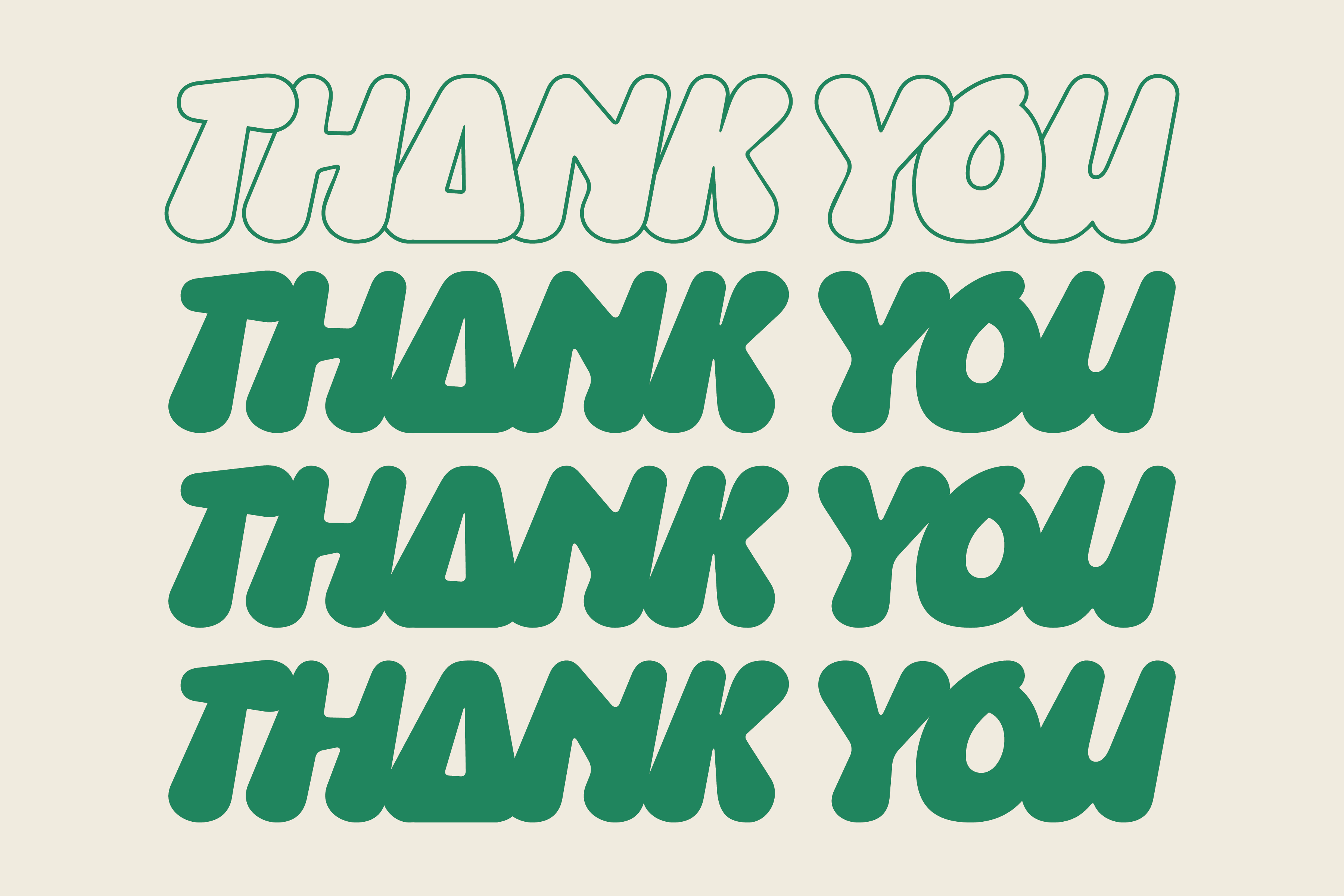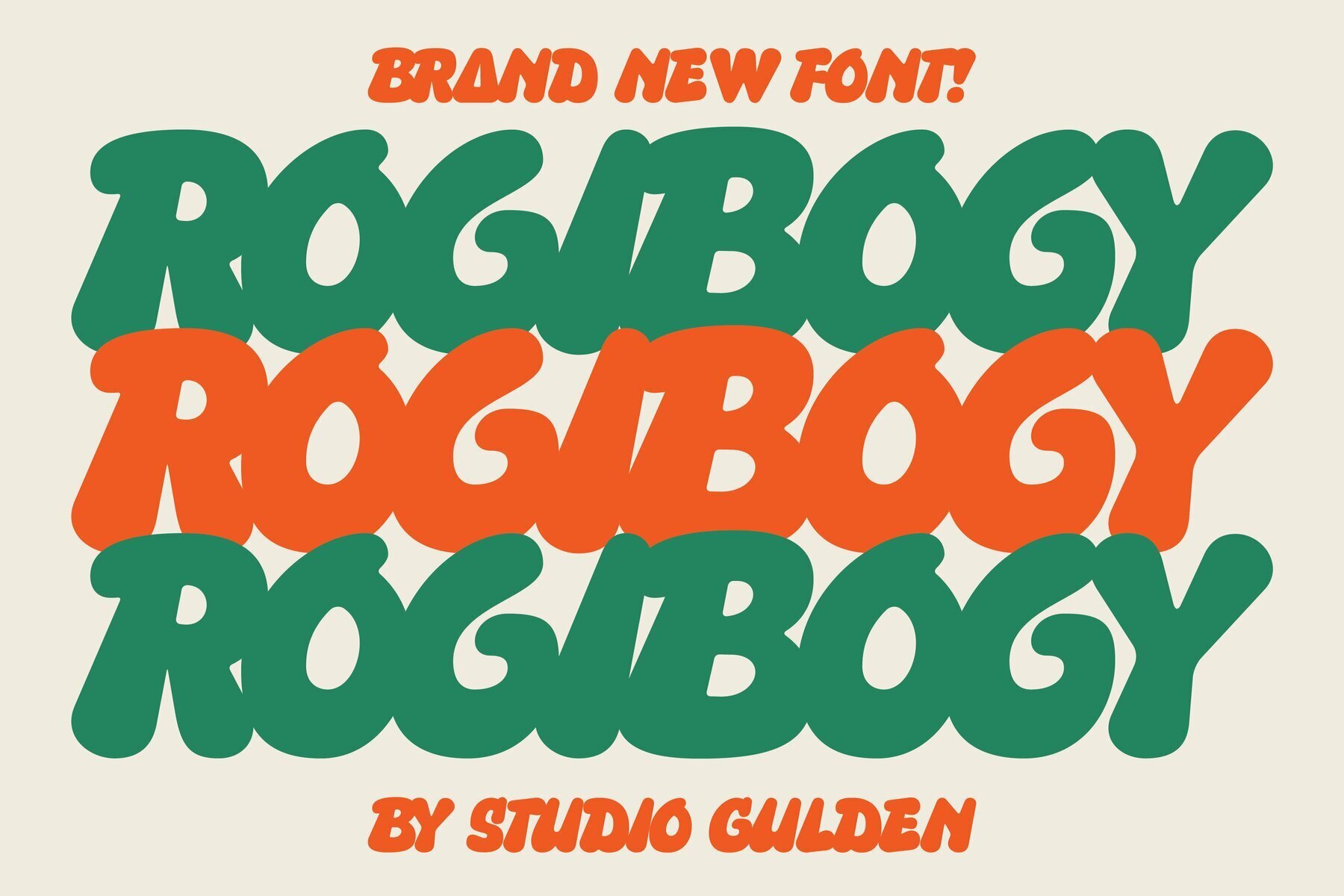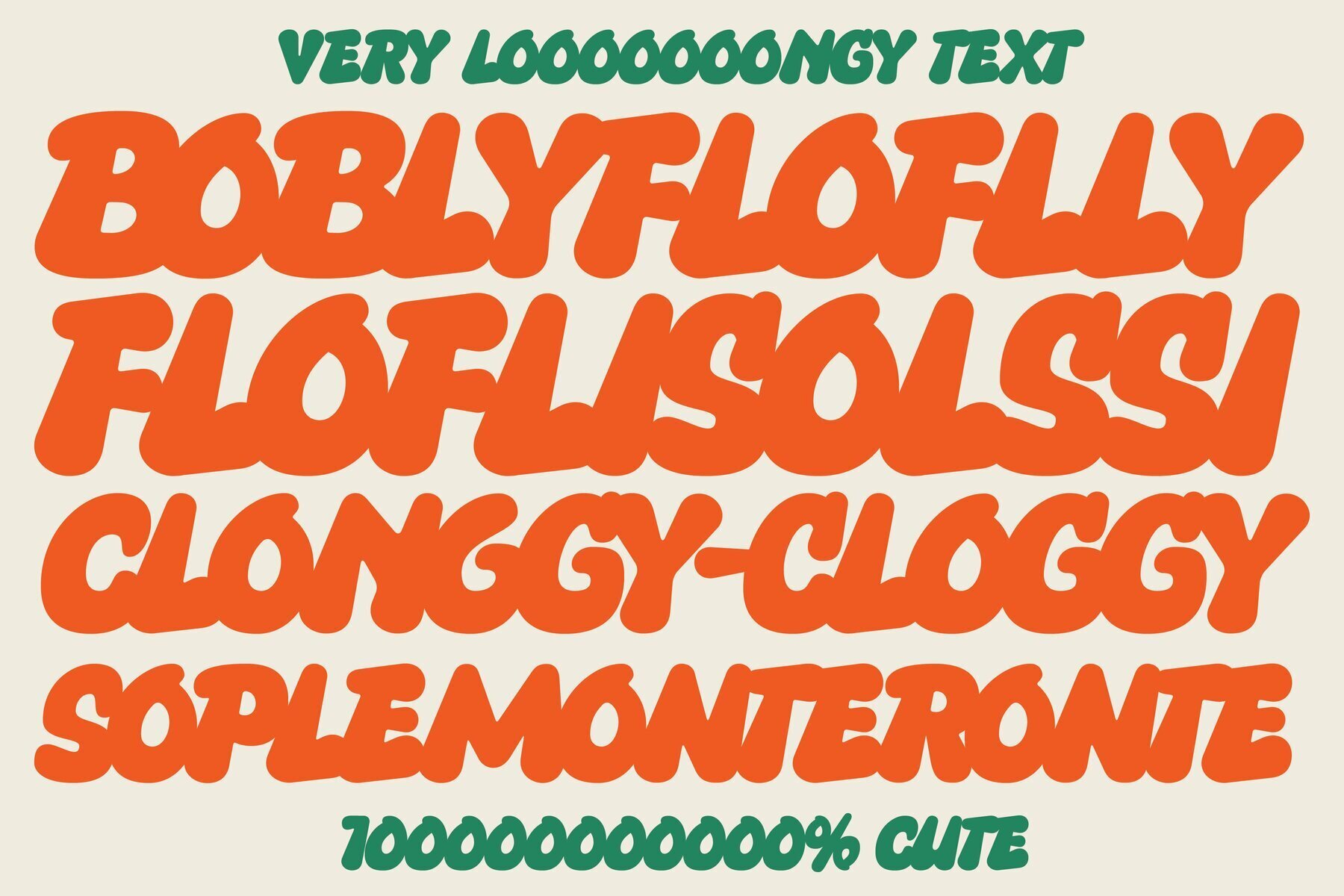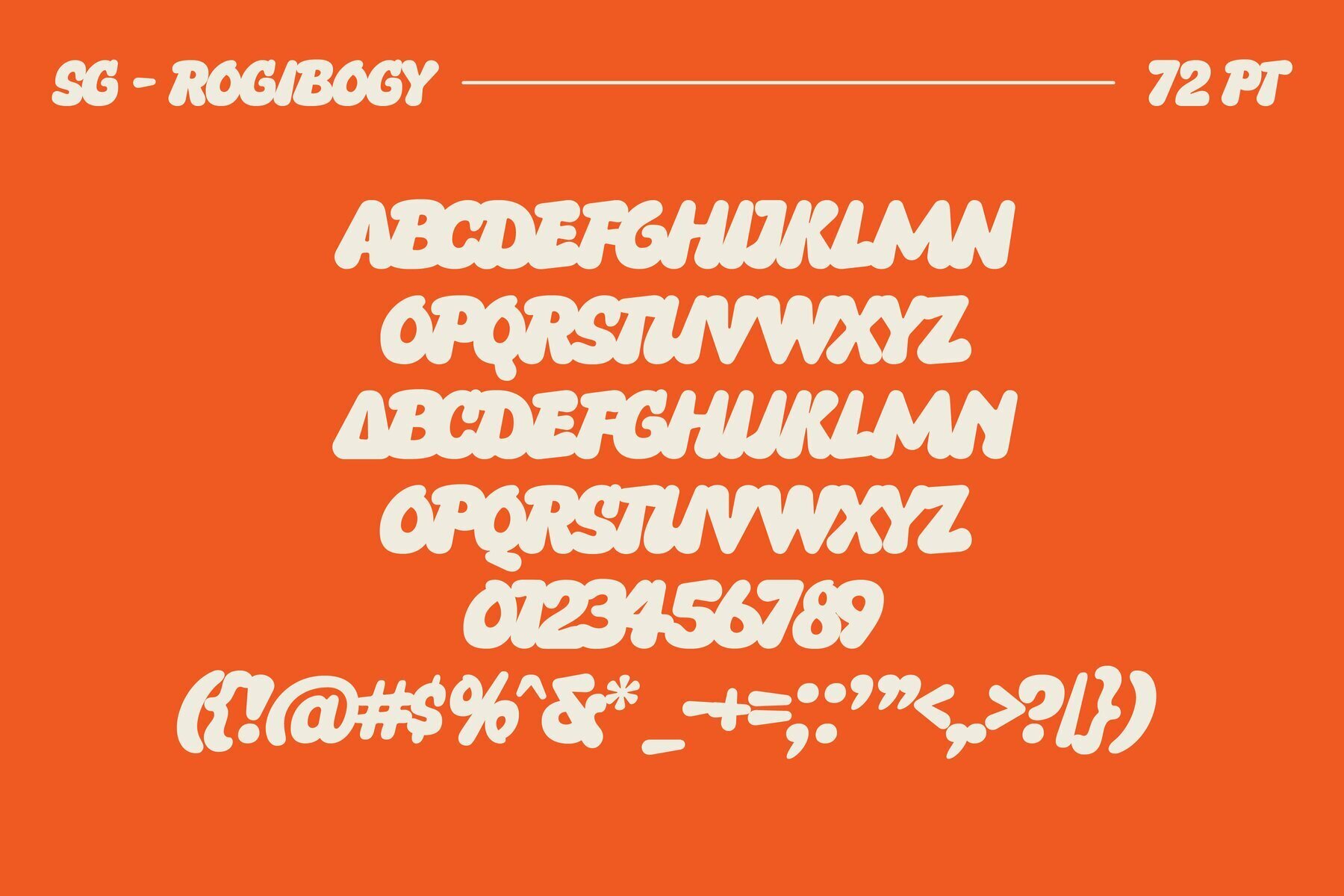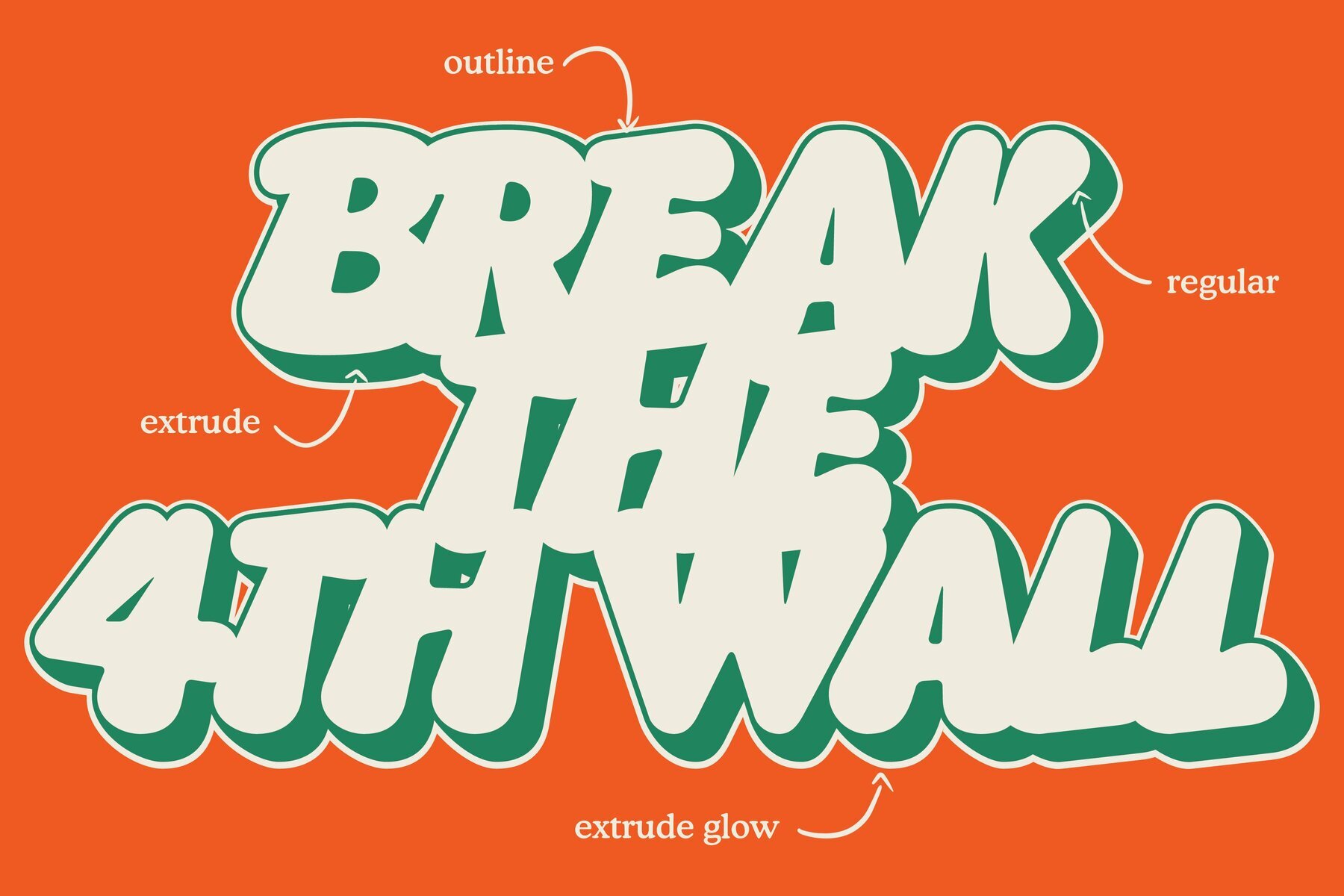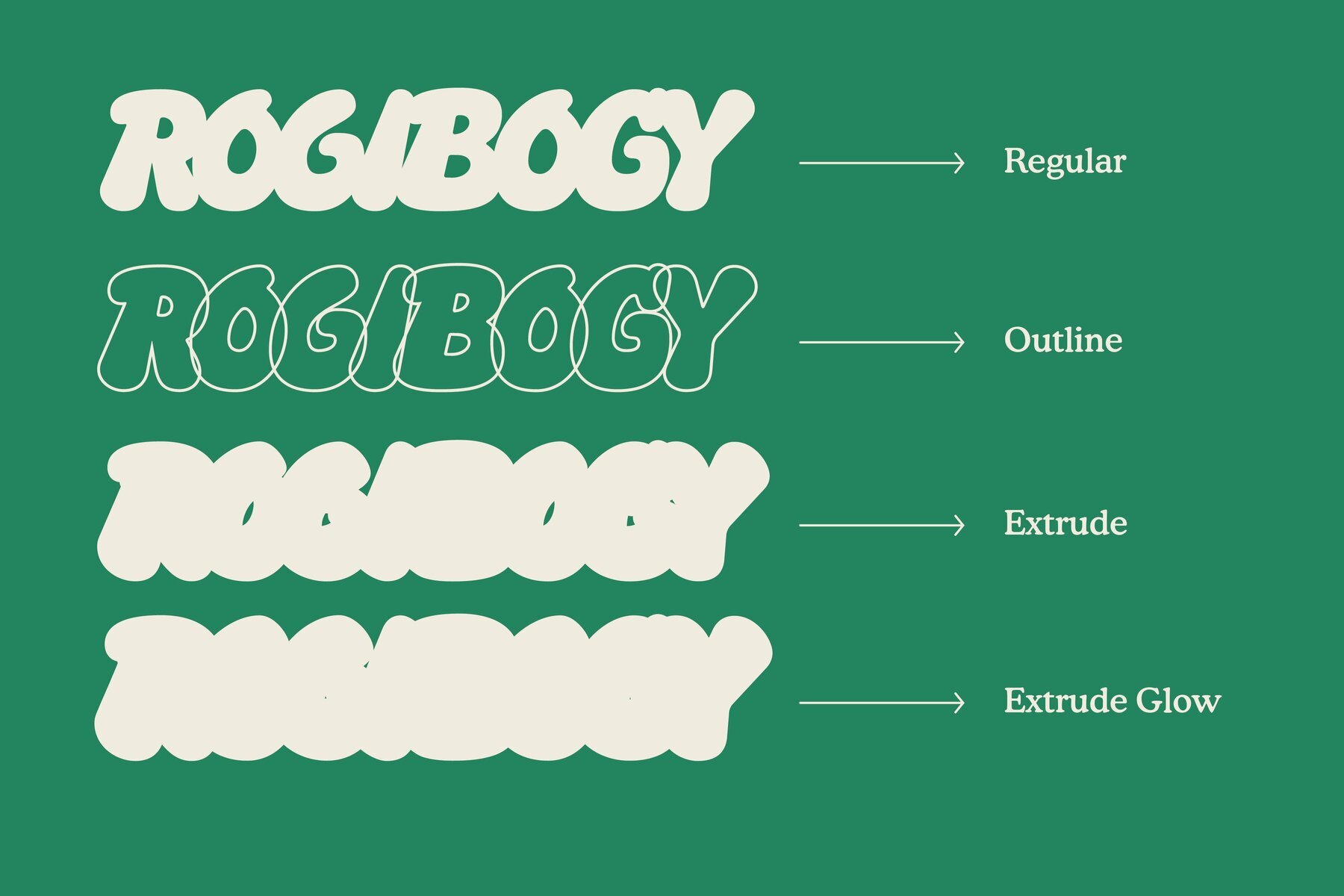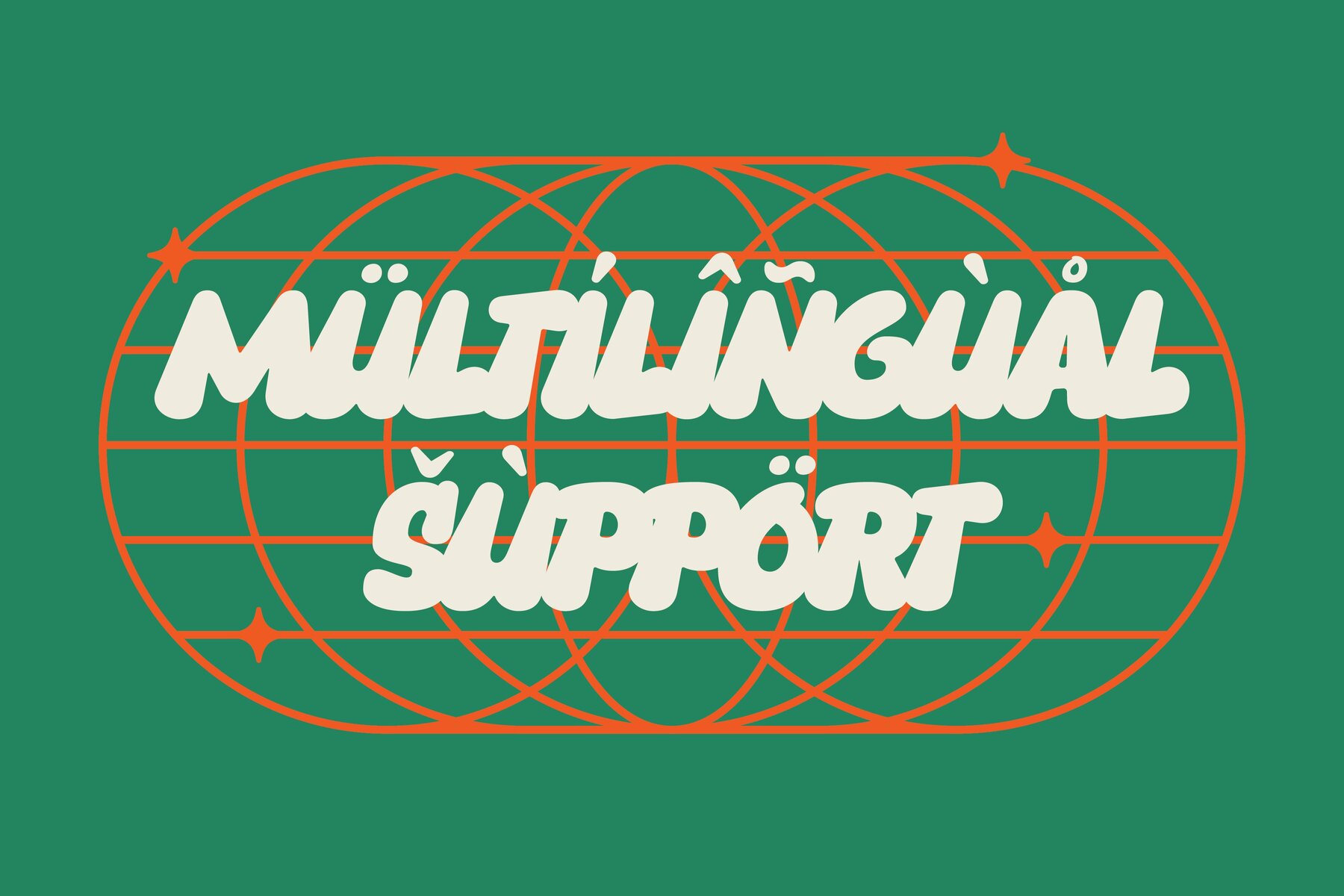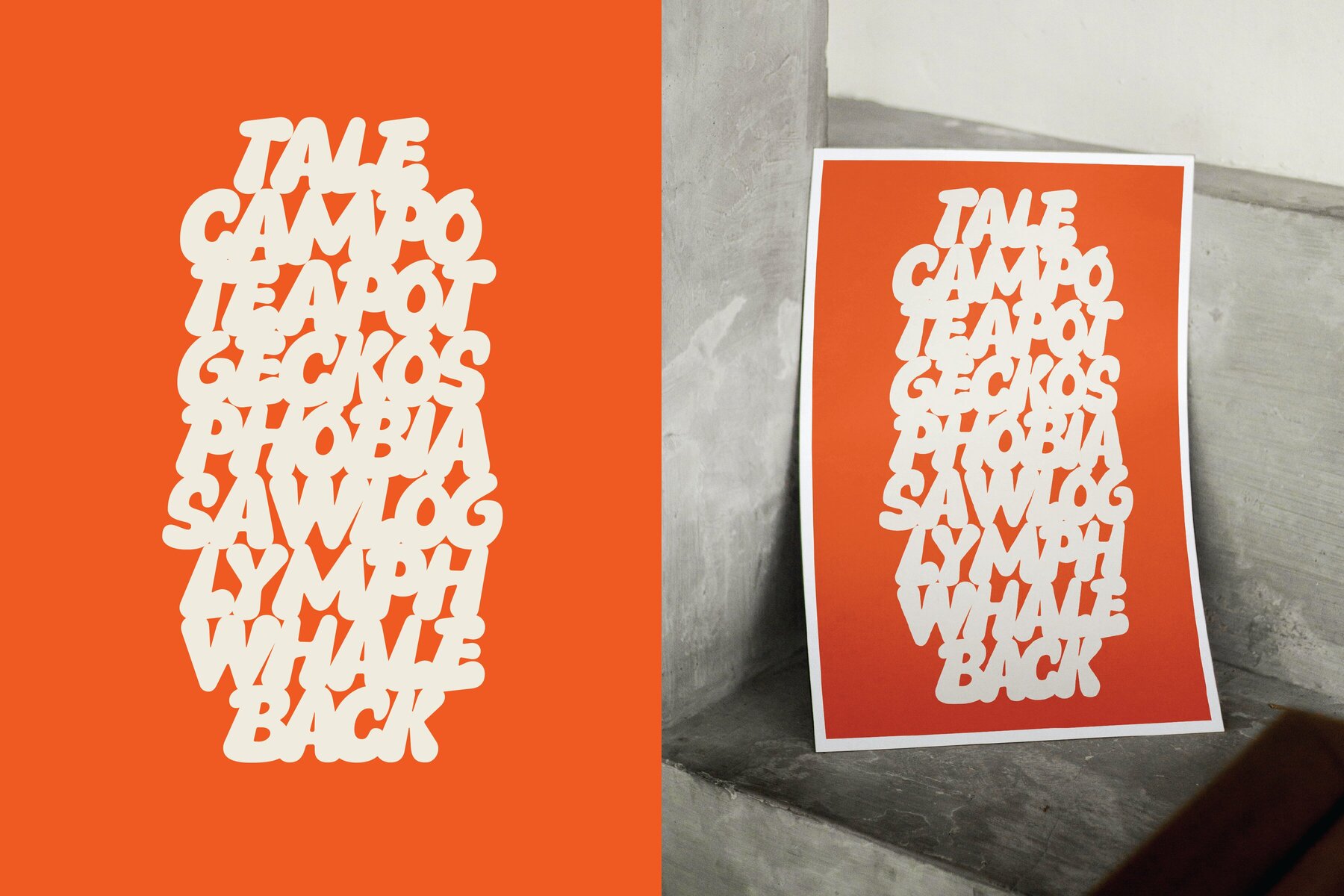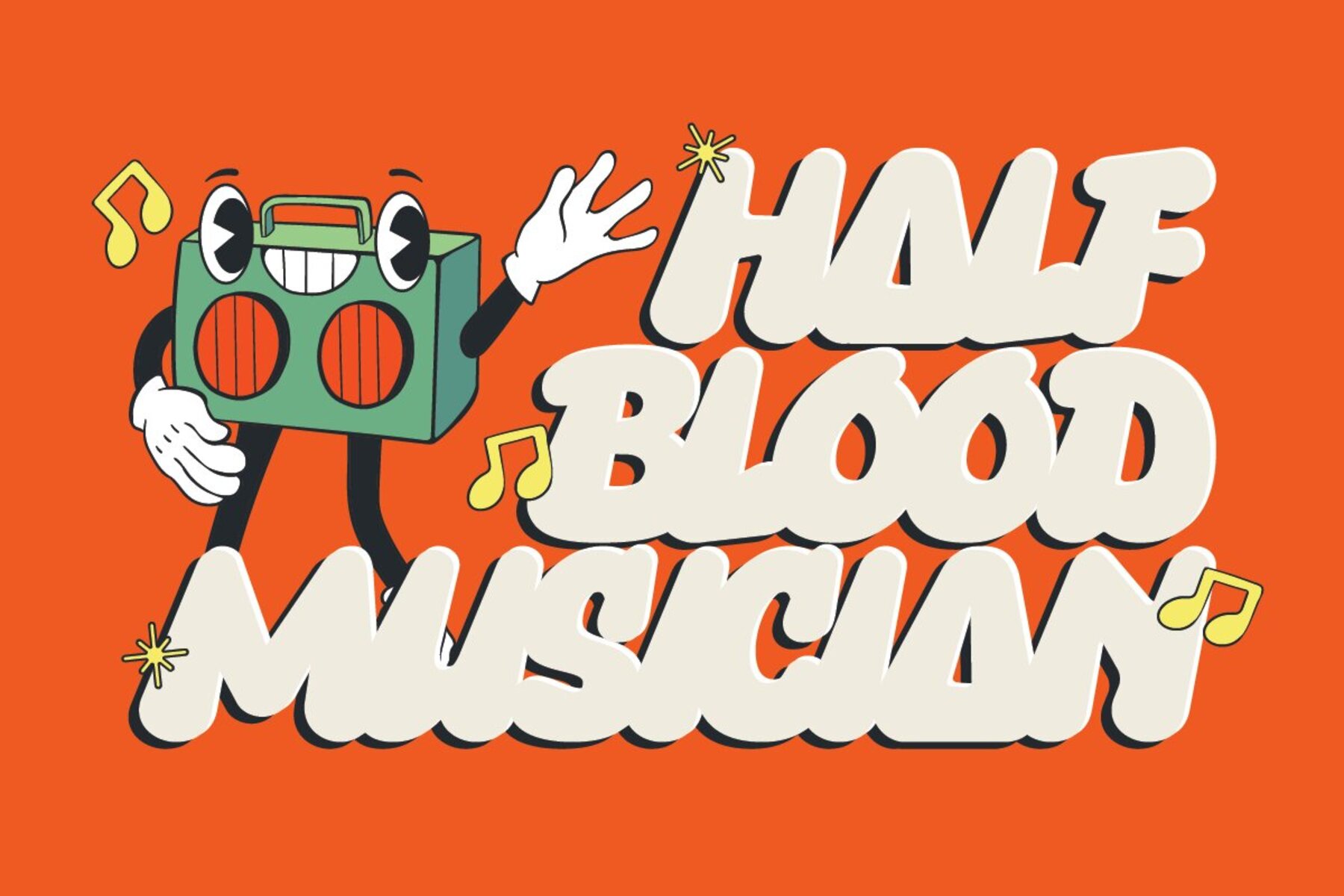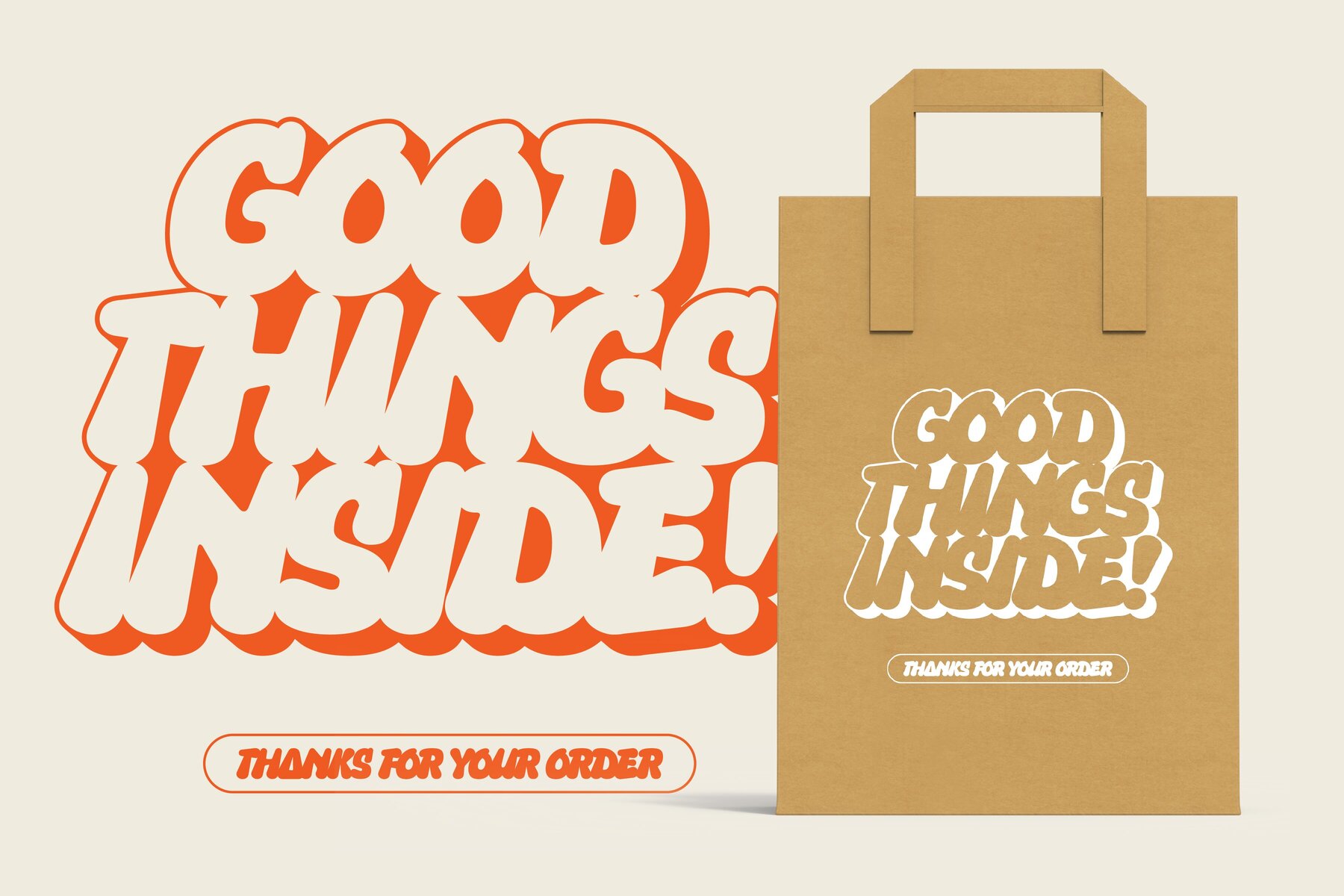
SG Rogibogy Font
SG Rogibogy Regular
SG Rogibogy Extrude
SG Rogibogy Extrude Glow
SG Rogibogy Outline
SG Rogibogy is a playful font, suitable for your design that needs a cute touch. There are several alternative choices of letters available.